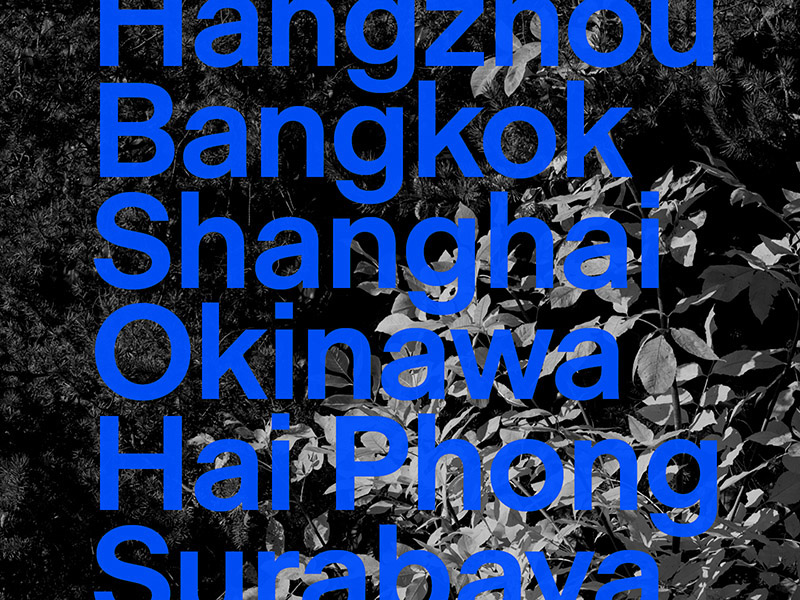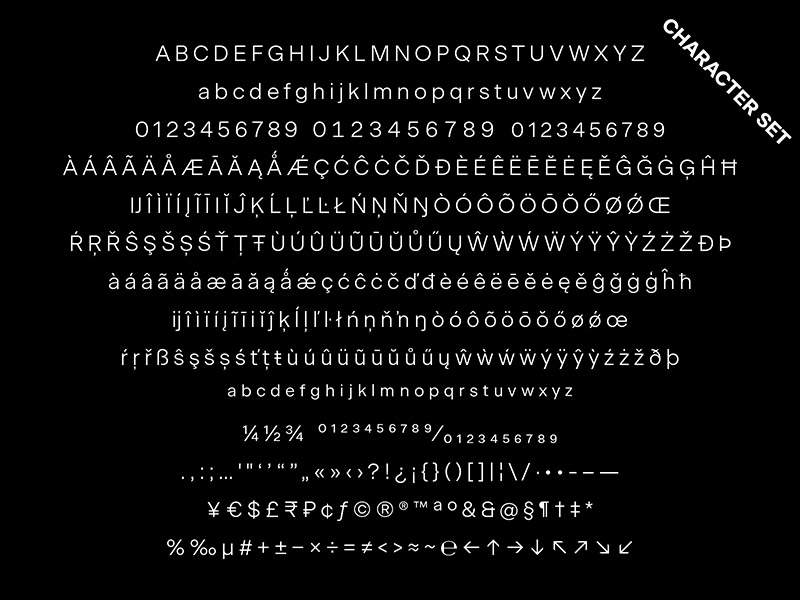
Typeface of the Month: Beausite Classic
Vier Jahre nach Veröffentlichung der Beausite ist das große Project von Fatype endlich fertig gestellt. Schon bei der originalen Veröffentlichung der kontrastreichen Schnitte Grand, Slick und Fit im Jahr 2014 war klar, dass es noch einen Zusatz mit wenig Kontrasten geben muss. Deshalb darf Fatype ein neues Mitglied der Beausite Familie begrüßen: Beausite Classic. Mit wenig Strichstärkenkontrast und geometrischen Formen ergänzt sie die Familie als Allrounder für den Einsatz im Design eines jeden Gestalters.
Beausite is a typeface system that applies contrast on a neogrotesque skeleton. The first release offered 3 levels of contrast: Grand, Slick and Fit. It soon became evident that the family necessitated an additional version to complete the system: its own no-contrast version.
After more than two and a half years of work, Fatype is happy to release Beausite Classic. Revisiting the neogrotesque archetype, Beausite Classic does not attempt to be a revolutionary design but, with its geometric touches, to feel like a contemporary design and offer an interesting design tool for designers working today.
Additionally, Beausite Classic has 19 alternate stylistic sets – some practical alternate shapes, some referencing the history of modernism and art deco, and some pushing the concept of the family to its extreme, with reversed and mixed contrast.
Beausite Classic comes in 10 weights with their italic partners. Some alternates are currently only available in the upright styles.
All styles come with a full character set for western and eastern european languages, and a number of OpenType features such as Stylistic Alternates, Ligatures, Smaller Figures for text, Tabular Figures and Fractions.
Beausite started in 2008 as a narrow high contrast typeface. The design evolved over the years and echoes Art Deco typefaces such as Peignot—designed by french graphic artist Cassandre and released in 1937 by Deberny & Peignot. Ultimately, the concept evolved to the idea of applying contrast onto a neogrotesque skeleton. Sans serifs such as Univers established the principle of programmed, consistent typeface families with a wide range of weights and widths. But contrast has rarely been a factor in such programs.
Beausite offers an alternative in the category of neogrotesques, while reliving the Art Deco trend for high contrast Sans in a contemporary fashion.
Beausite Classic
Foundry: Fatype
Designer: Yassin Baggar
Release: 2018
Weights: 10 weights from Ultralight to Ultrablack, each with Italics